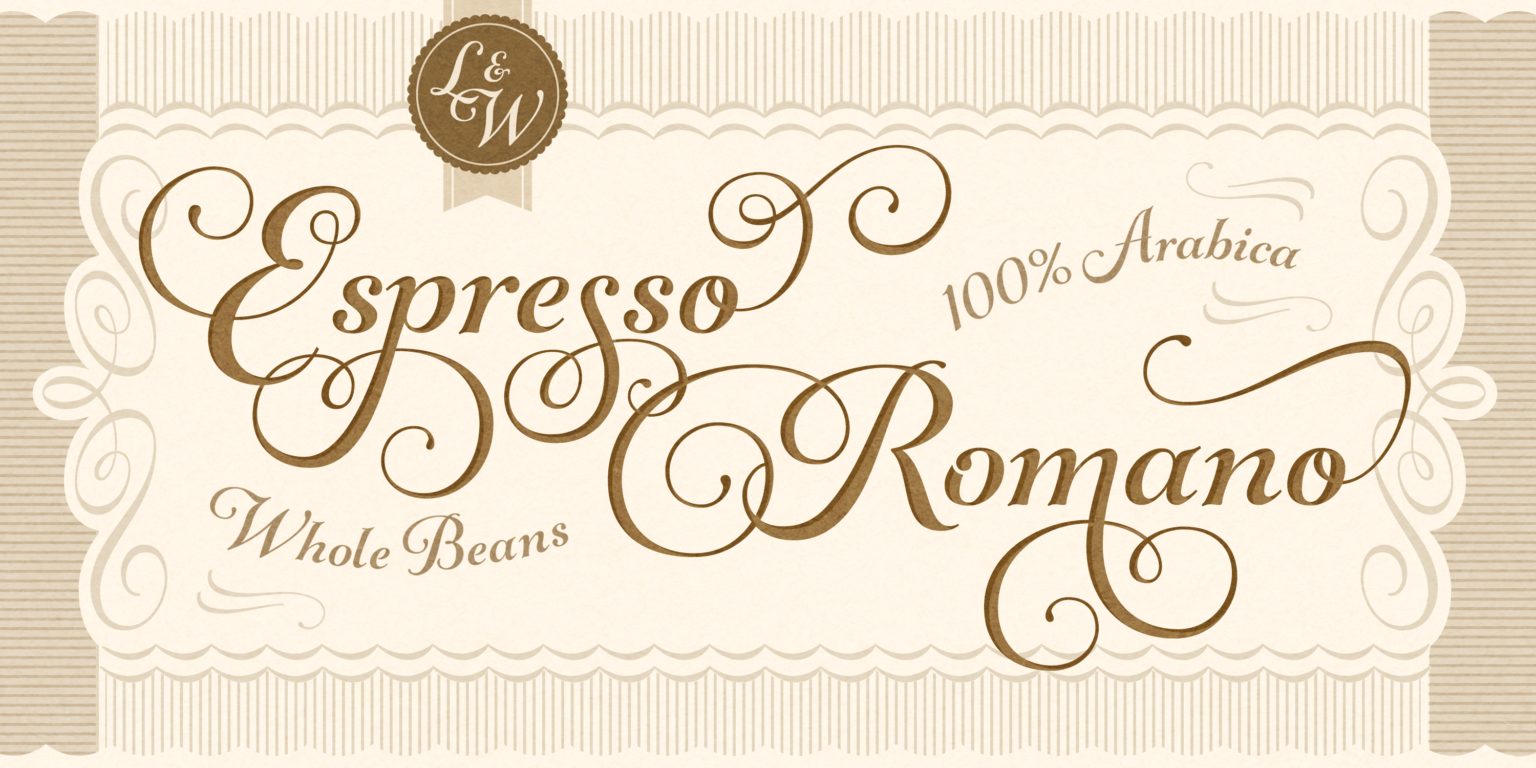
Gioviale Font
Gioviale Font excels in festive celebration invitations, joyful greeting cards, cheerful party decorations, happy birthday materials, uplifting social media graphics, positive lifestyle brands, cheerful children's products, sunny cafe signage, optimistic marketing campaigns, and vibrant community event promotions requiring infectious happiness and celebratory spirit.
What makes Gioviale Font exciting is its remarkable ability to instantly spread joy and positivity through typography that radiates pure happiness and celebratory energy. This delightful typeface features bouncy, exuberant letterforms with playful curves and uplifting proportions that create an immediate emotional connection with viewers, evoking feelings of celebration, friendship, and pure joy. The font's infectious optimism and festive character make it perfect for projects seeking to communicate genuine happiness, community spirit, and the irresistible appeal of shared celebrations and positive experiences.
Gioviale Font belongs to the celebratory script font family, specifically designed to capture the spontaneous joy and festive energy of happy occasions and social gatherings. This font family typically includes regular, bold, and decorative variants with playful alternates and celebratory flourishes, providing designers with comprehensive tools for creating authentically joyful visual experiences that make people smile.
Perfect for event planners, greeting card designers, community organizers, and creative professionals specializing in celebratory aesthetics, this typeface shines in invitations, headers, and joyful display applications. The font's celebratory presence enhances party materials, social events, positive messaging, and community projects where happiness and togetherness are central themes.
The thoughtfully crafted letterforms maintain excellent readability while expressing distinctive celebratory character across all celebratory contexts. From intimate birthday invitations to large-scale community festival banners, Gioviale Font delivers consistent joy while preserving its festive aesthetic and uplifting appeal.
Modern designers value how this font communicates authentic celebration without appearing forced, creating designs that feel both professionally polished and genuinely joyful. Its versatile happiness and positive energy ensure meaningful integration into projects promoting community spirit, social connection, and life's happiest moments.